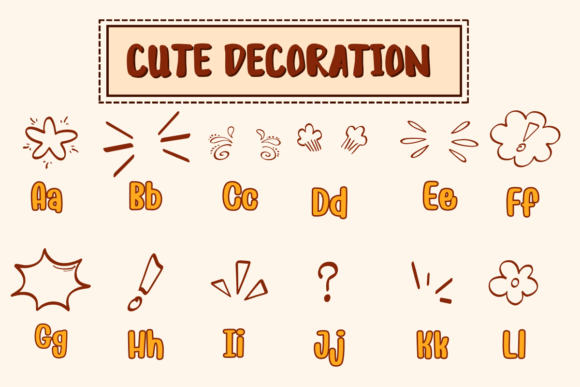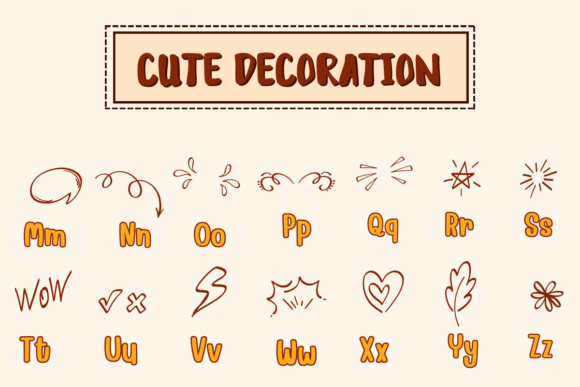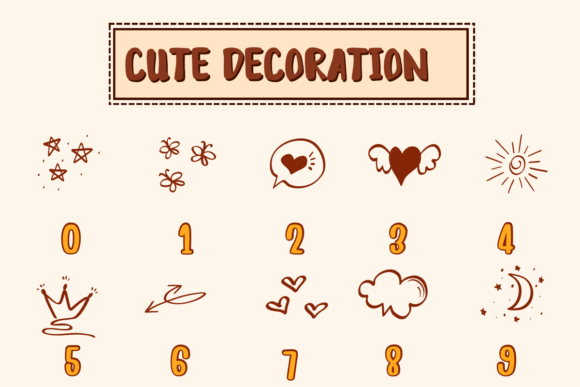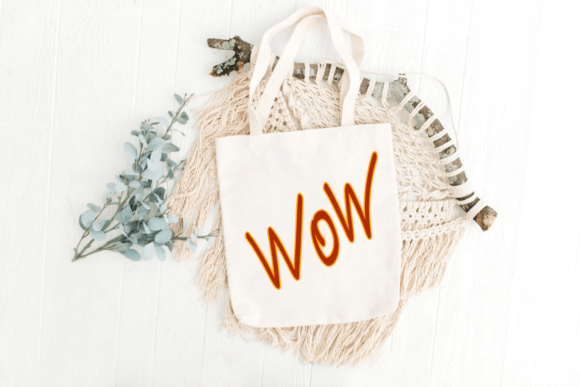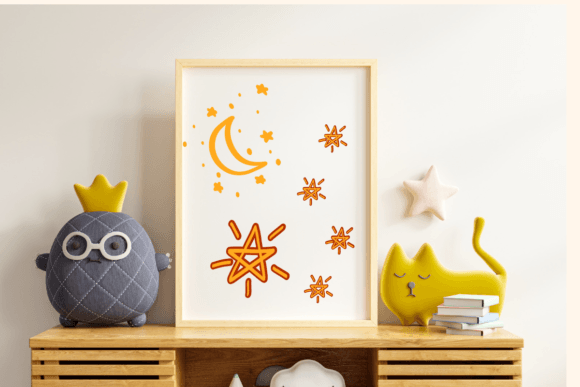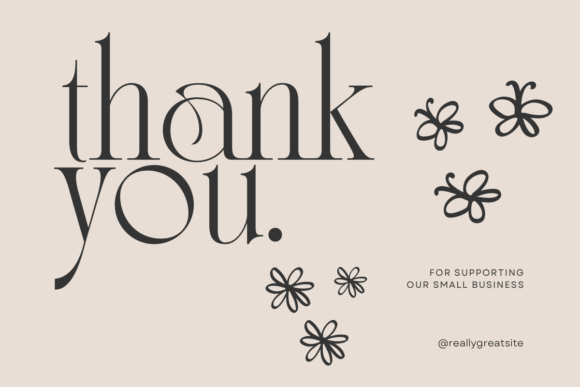
Cute Decoration Font: Elevate Your Creative Projects with a Fun and Playful Touch
Are you a designer, crafter, or DIY enthusiast looking for a unique and playful font to add a personal touch to your creative projects? Look no further than Cute Decoration, a charming dingbats font that is sure to delight. With its fun theme and versatile design, Cute Decoration is the perfect addition to a wide range of projects, from wedding invitations and decorations to logos, crafts, and beyond.
What is Cute Decoration Font?
Cute Decoration is a dingbats font that features a collection of adorable and whimsical characters, including cute animals, flowers, hearts, and other decorative elements. This font is designed to add a playful and fun touch to your creative projects, making it perfect for designers and crafters who want to create unique and eye-catching designs.
Features of Cute Decoration Font
Cute Decoration font comes with a range of features that make it an ideal choice for creative projects. Some of its key features include:
- Fun and playful design: Cute Decoration font features a fun and playful design that is sure to add a personal touch to your creative projects.
- Versatile: This font is versatile and can be used in a wide range of projects, from wedding invitations and decorations to logos, crafts, and beyond.
Uses of Cute Decoration Font
Cute Decoration font can be used in a wide range of creative projects, including:
- Wedding invitations: Add a personal touch to your wedding invitations with Cute Decoration font.
- DIY projects: Use Cute Decoration font to create unique and eye-catching DIY projects, such as decorations, crafts, and gifts.
- Logos: Create a fun and playful logo for your business or brand with Cute Decoration font.
- Crafts: Use Cute Decoration font to create handmade crafts, such as cards, gift tags, and other paper crafts.
- Decorations: Add a personal touch to your decorations, such as banners, garlands, and other decorative elements.
Tips for Using Cute Decoration Font
Here are some tips for using Cute Decoration font in your creative projects:
- Mix and match: Mix and match Cute Decoration font with other fonts to create a unique and eye-catching design.
- Experiment with colors: Experiment with different colors and textures to add depth and interest to your design.
- Use it sparingly: Use Cute Decoration font sparingly to avoid overwhelming your design.
- Have fun: Most importantly, have fun and be creative with Cute Decoration font!